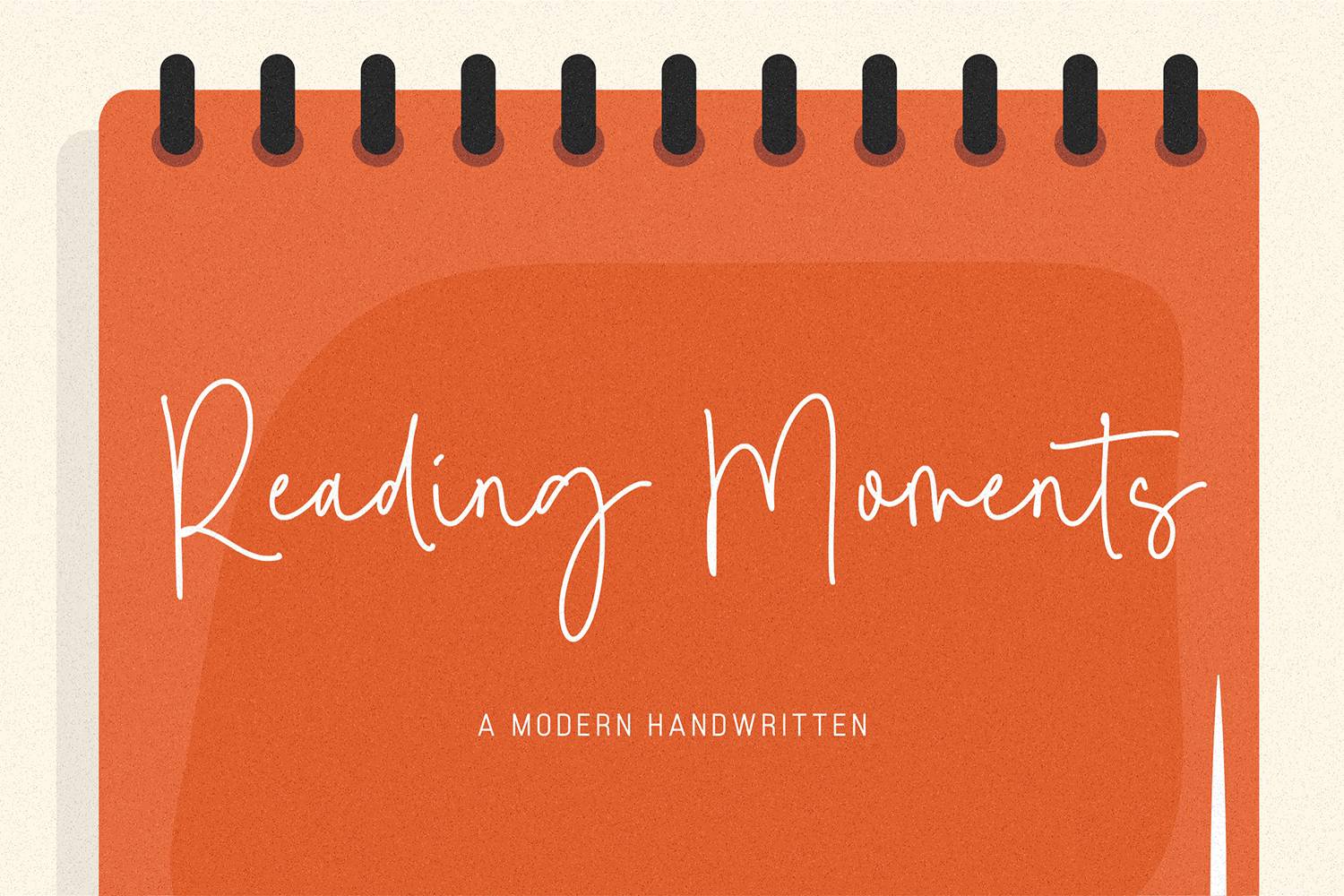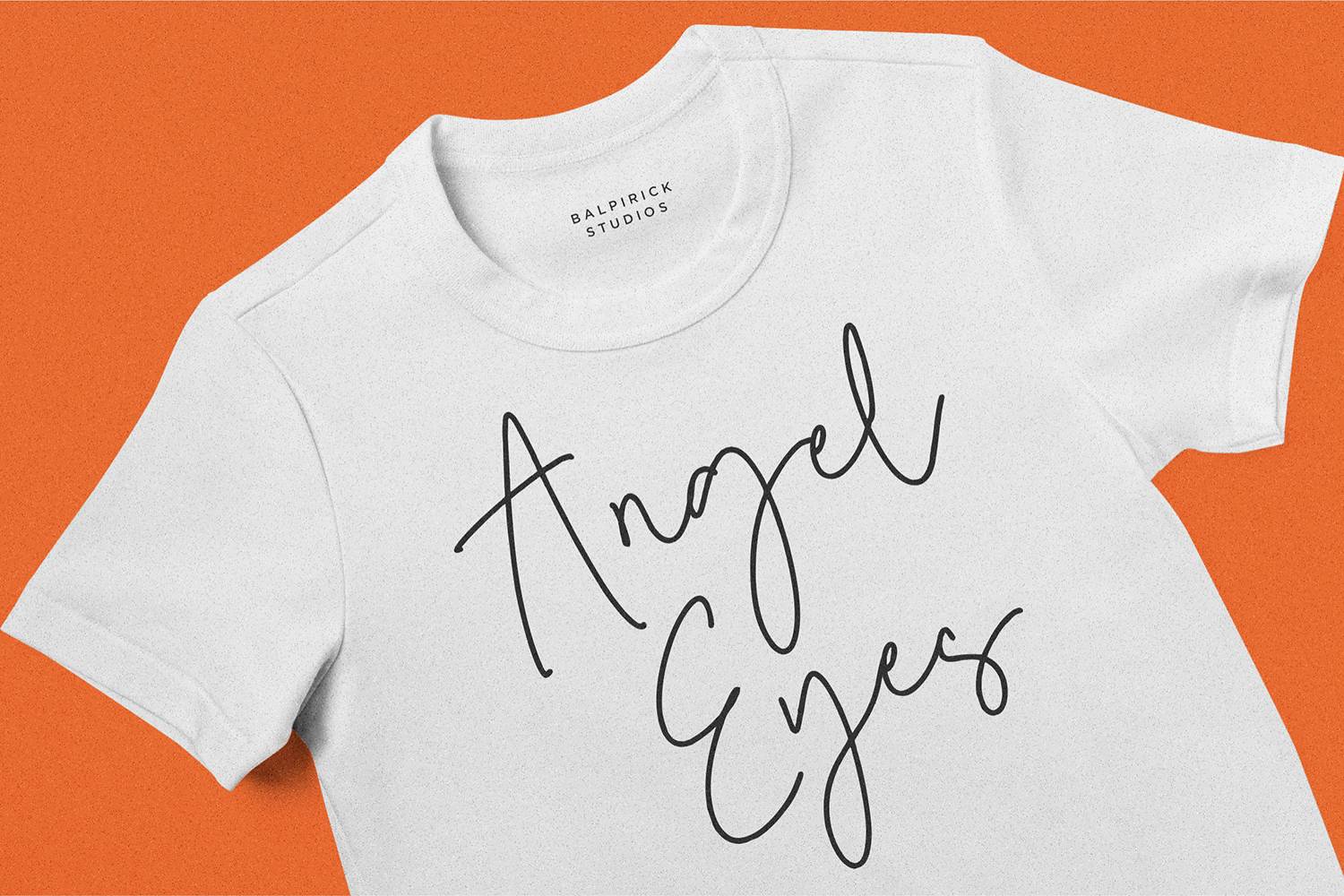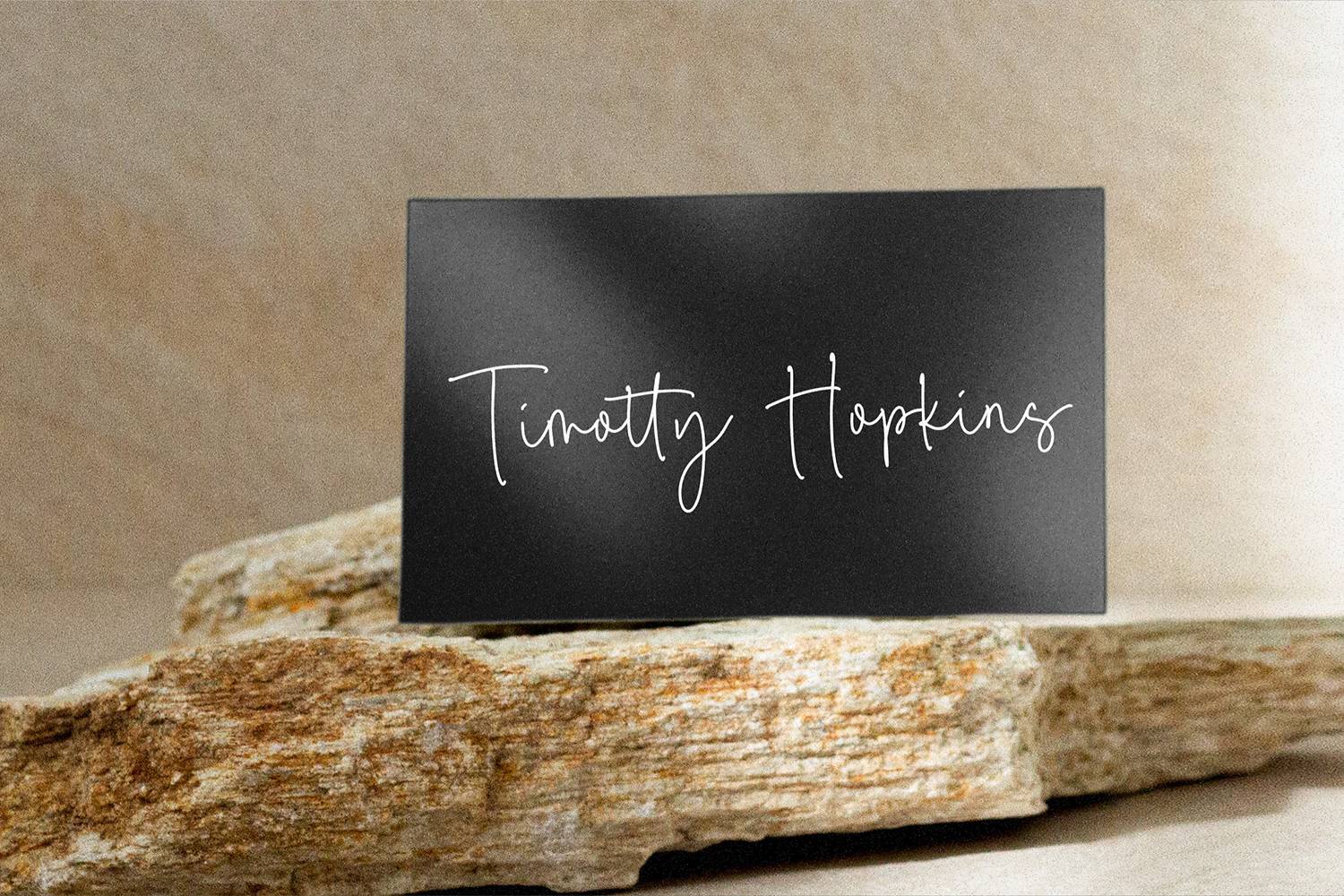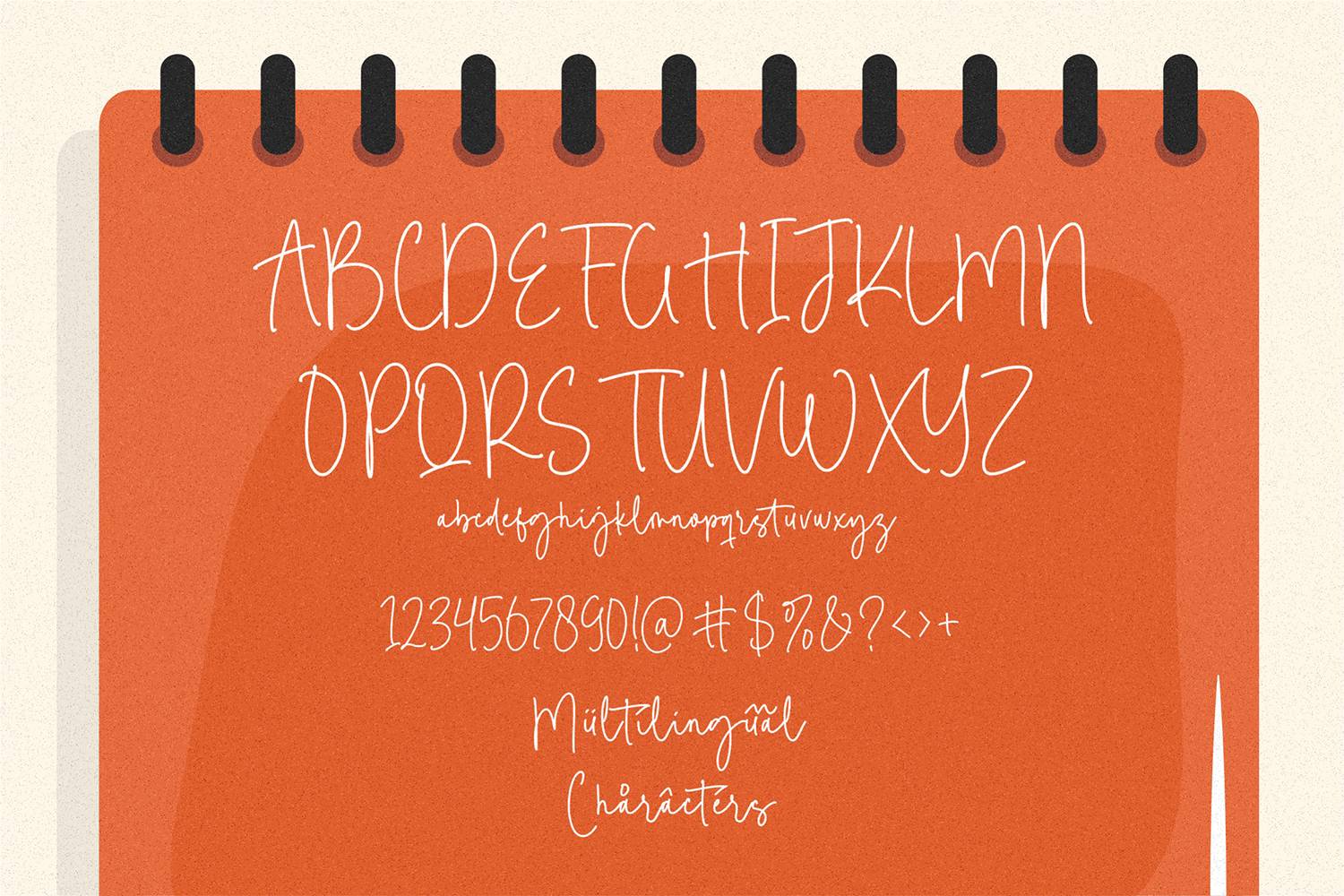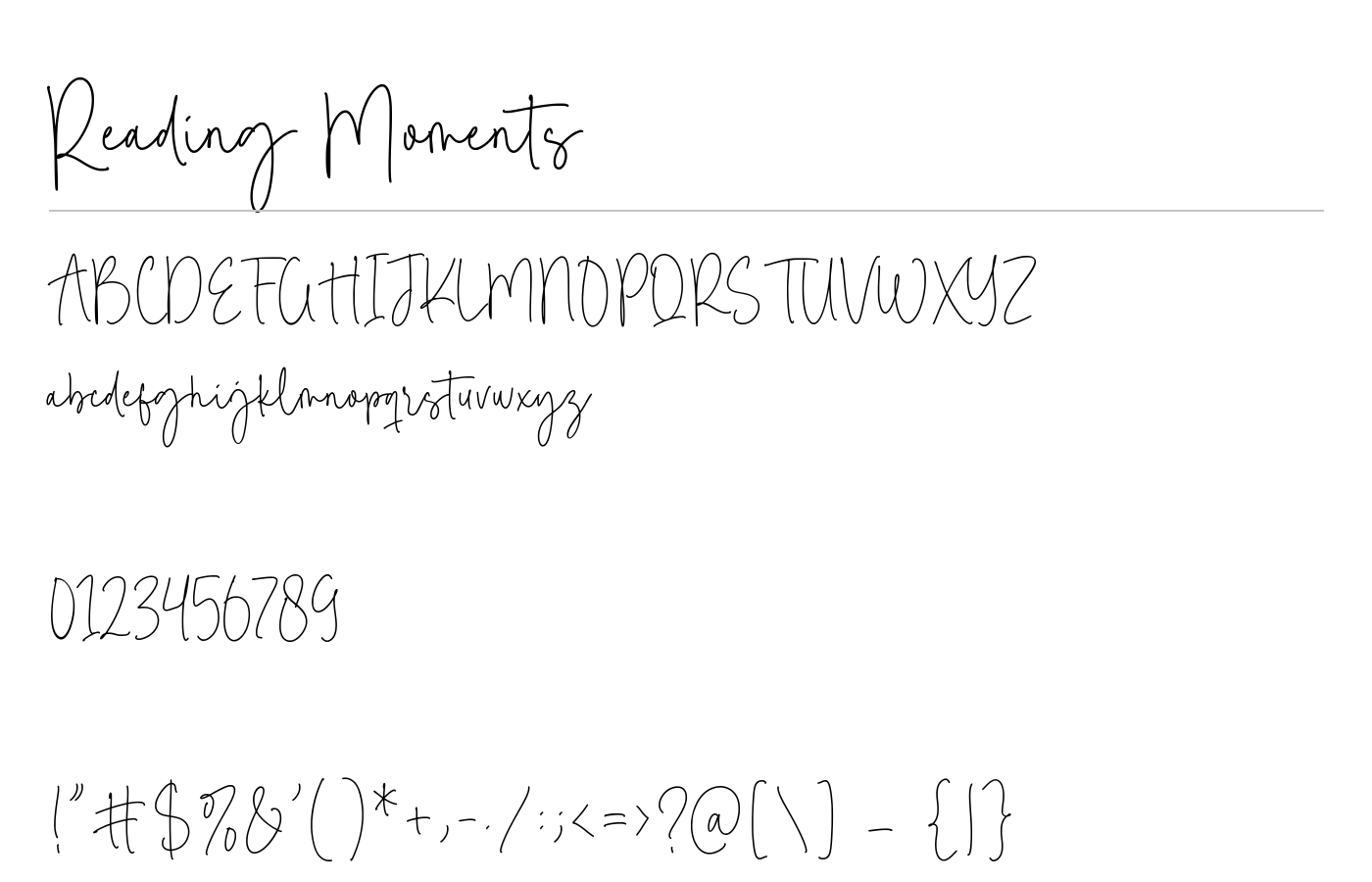
Reading Moments is a delicate, handwritten script font with a light, airy feel characterized by slender, fluid strokes and a natural, casual rhythm. Its tall, narrow letterforms and playful curves create a personal and approachable style, perfect for adding a warm, authentic touch to branding, invitations, and creative projects that seek a charming, intimate vibe.
Reading Moments Font
About Reading Moments Font